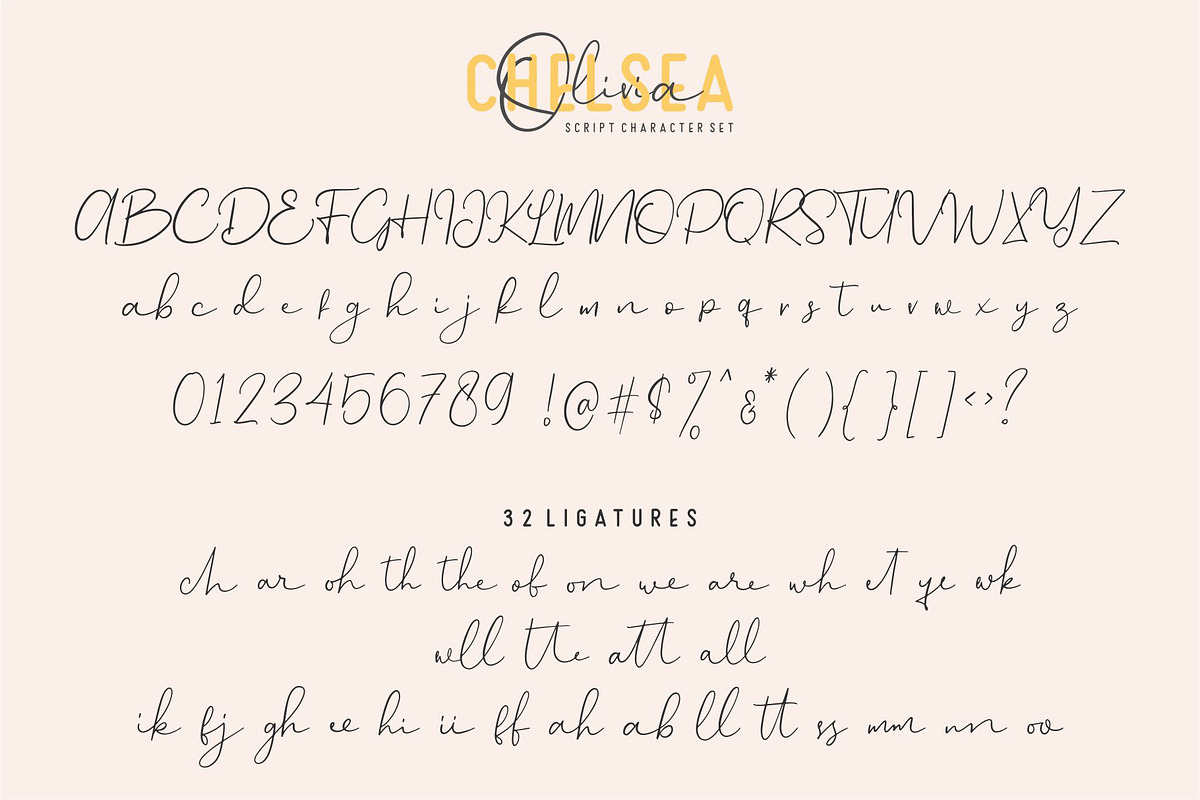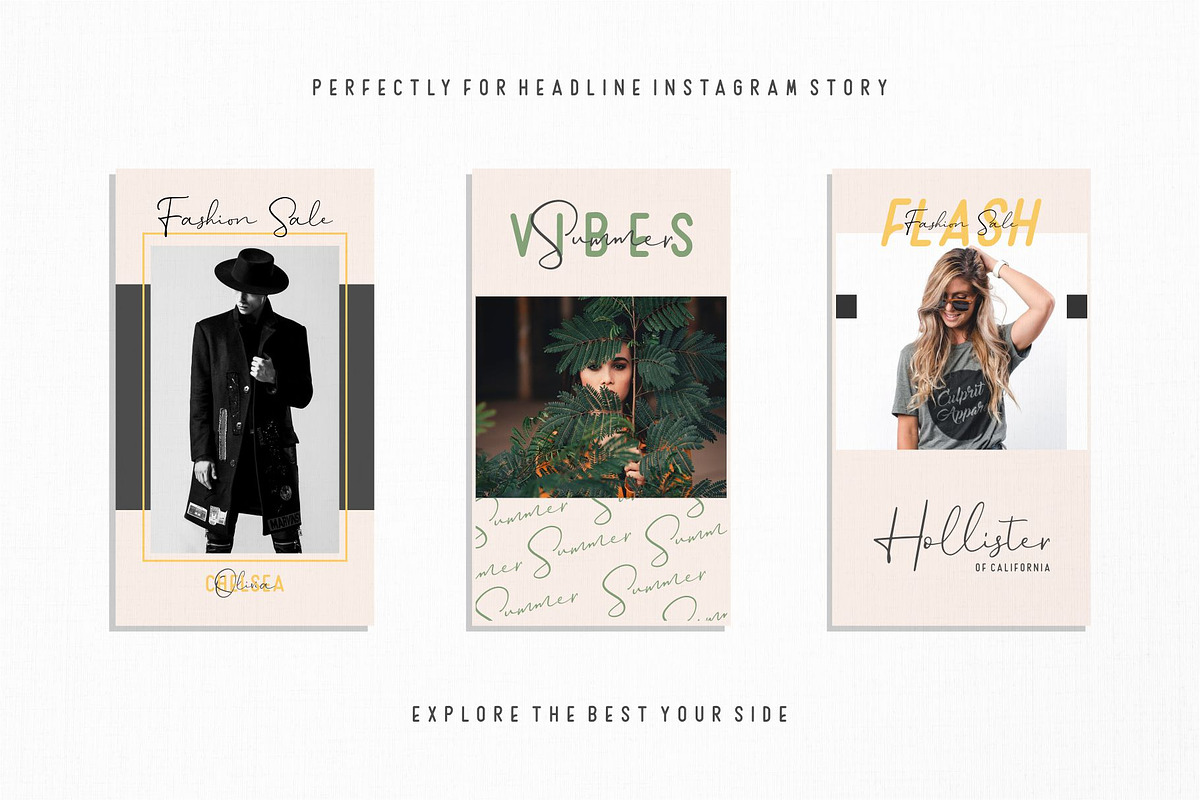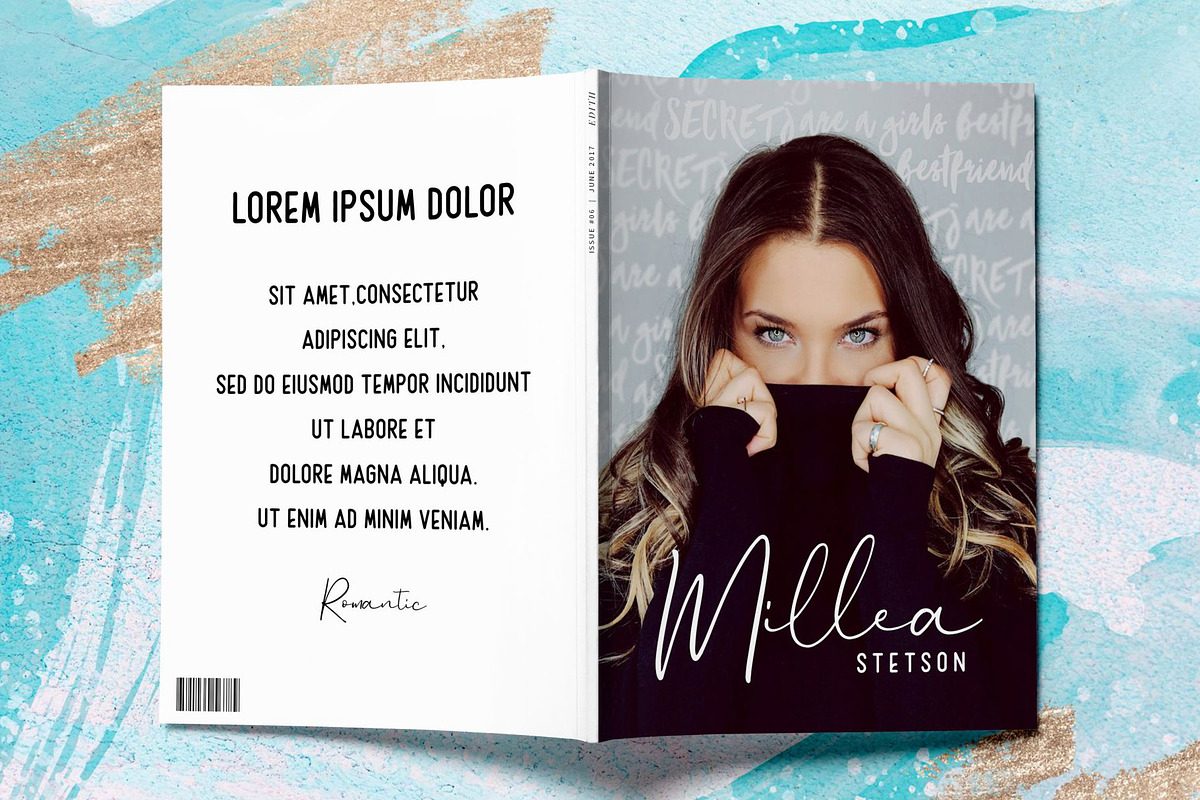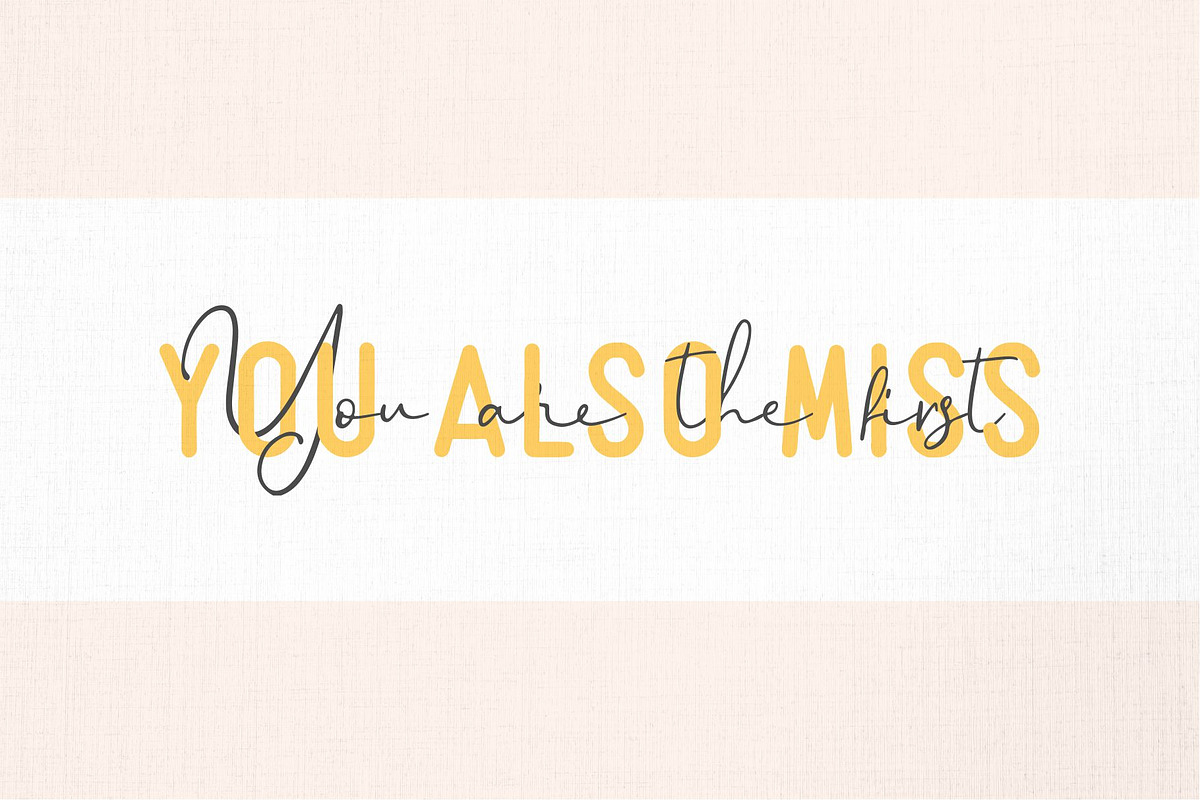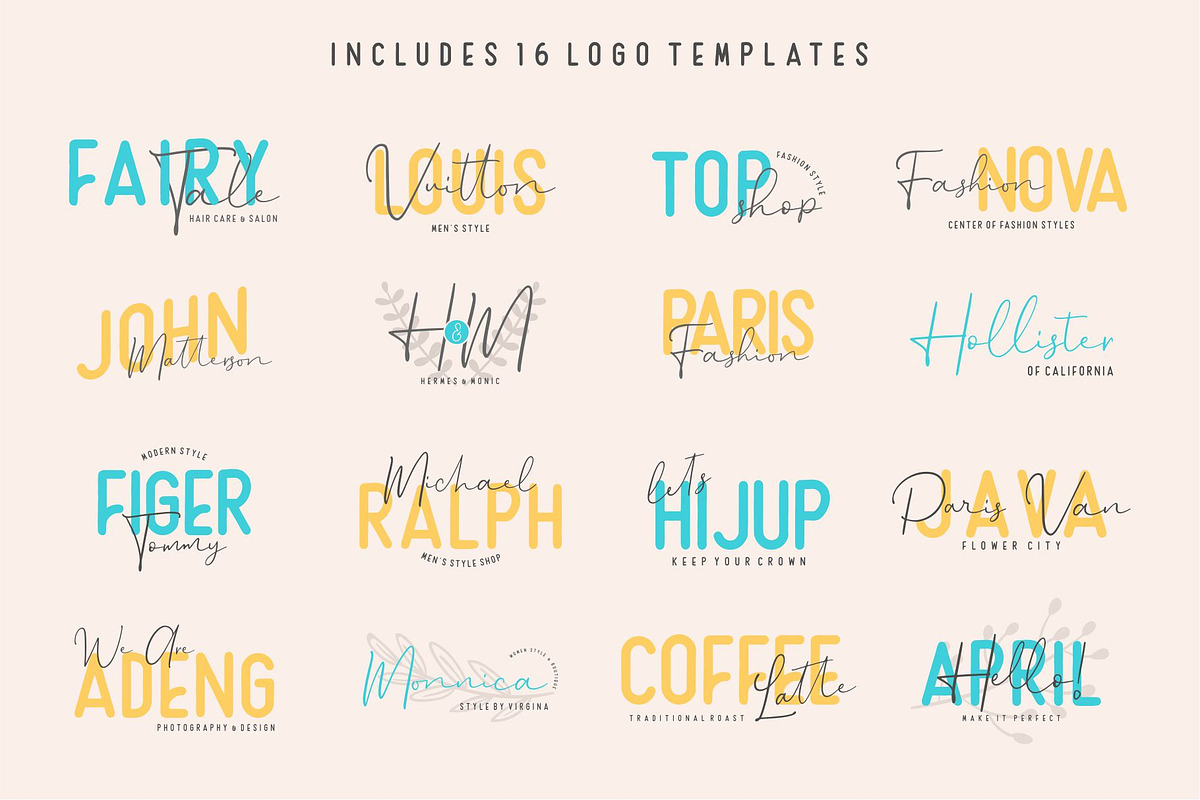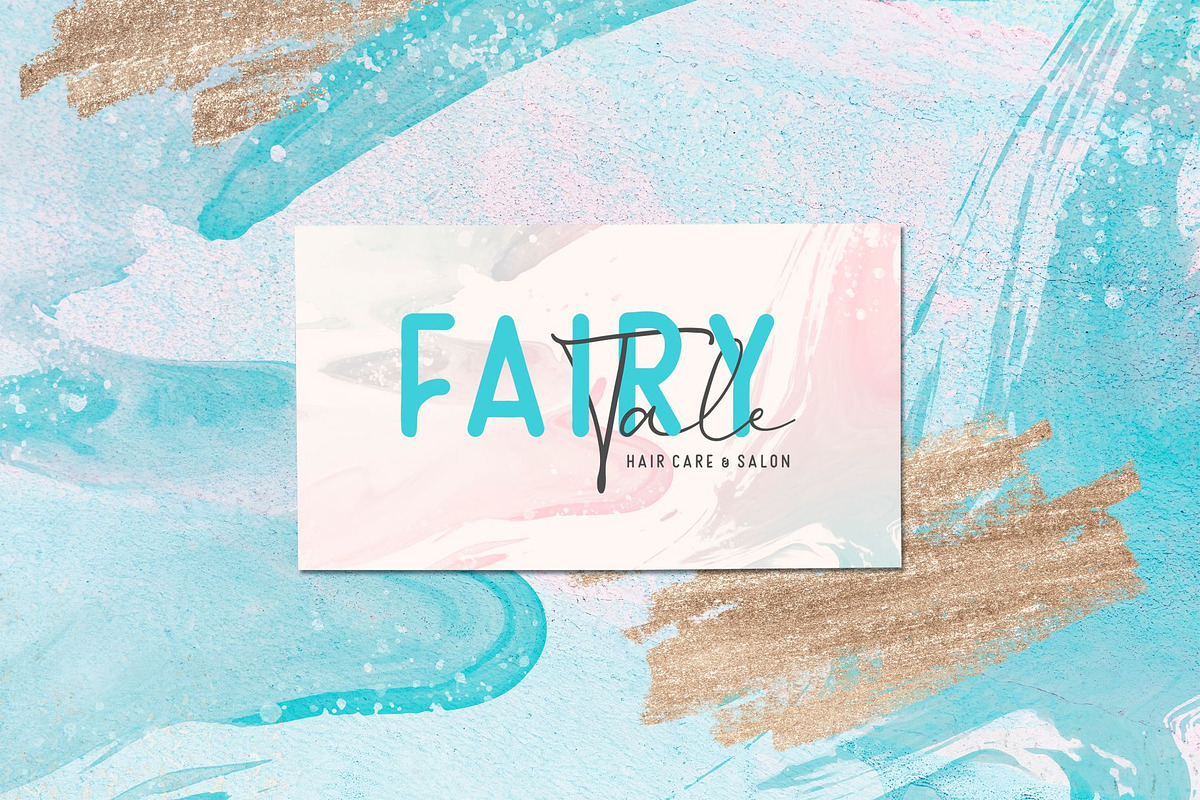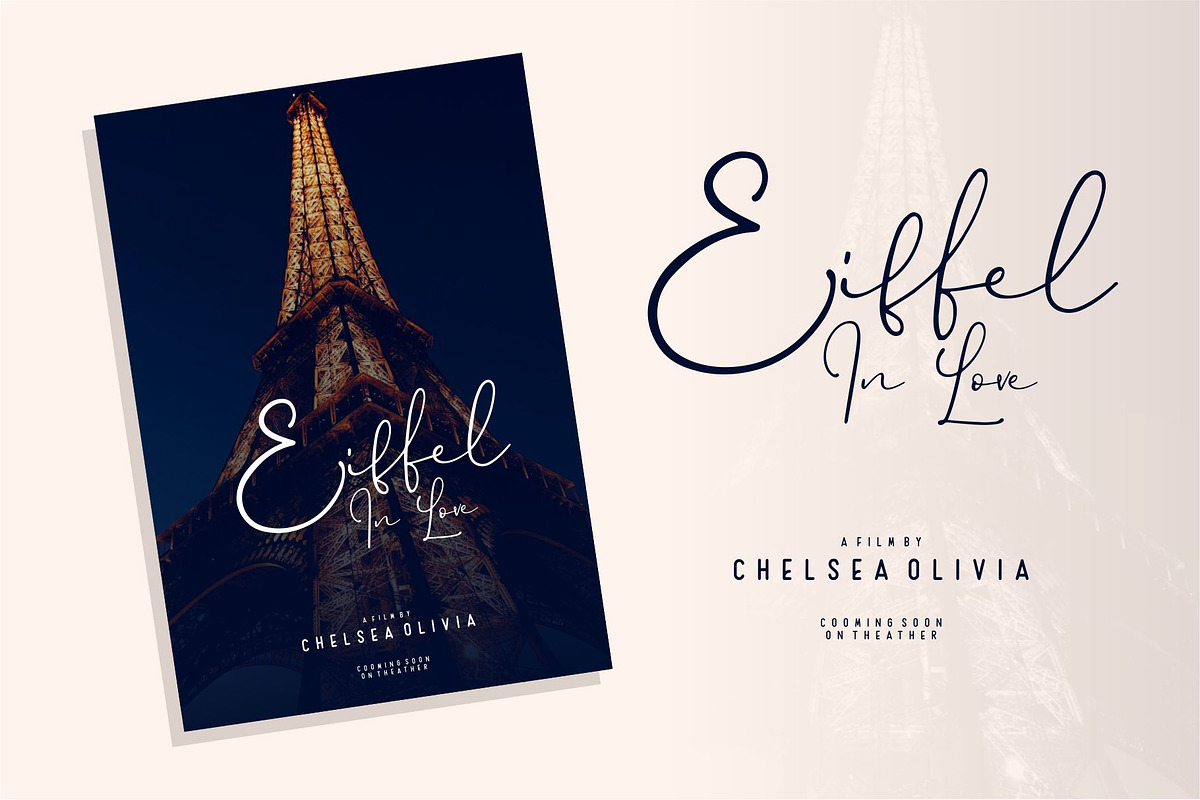
Chelsea Olivia - Font Duo
A warm duo of fonts in front of you! This is a super duo with lots of ligature. This is perfect for logos (including 16 pre-made logos and you can edit them again), wedding invitations, easter, posters, business cards, logos, headlines, Instagram stories, youtube stories, book cover, poster promotion and many more! Get the best pairing fonts with Chelsea Olivia!
- Numbers + punctuation + Multilingual Language in all fonts